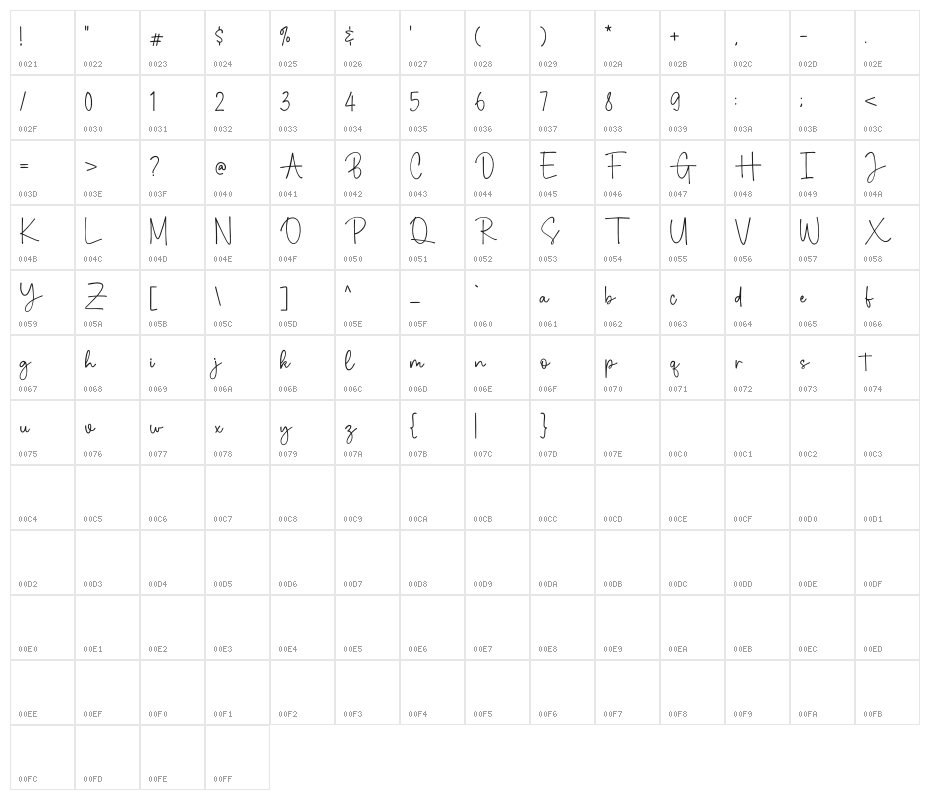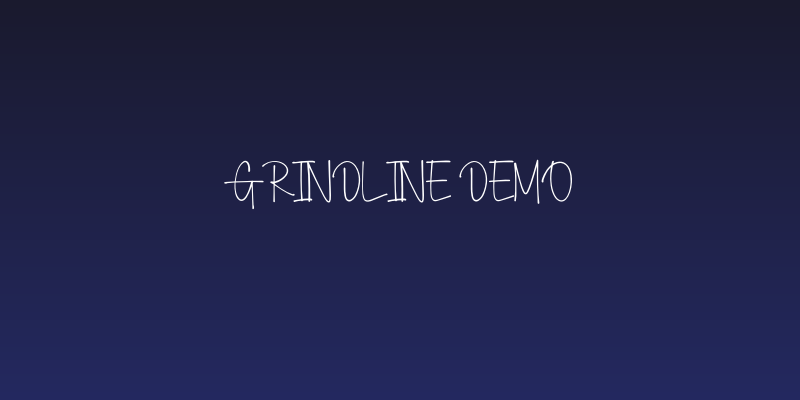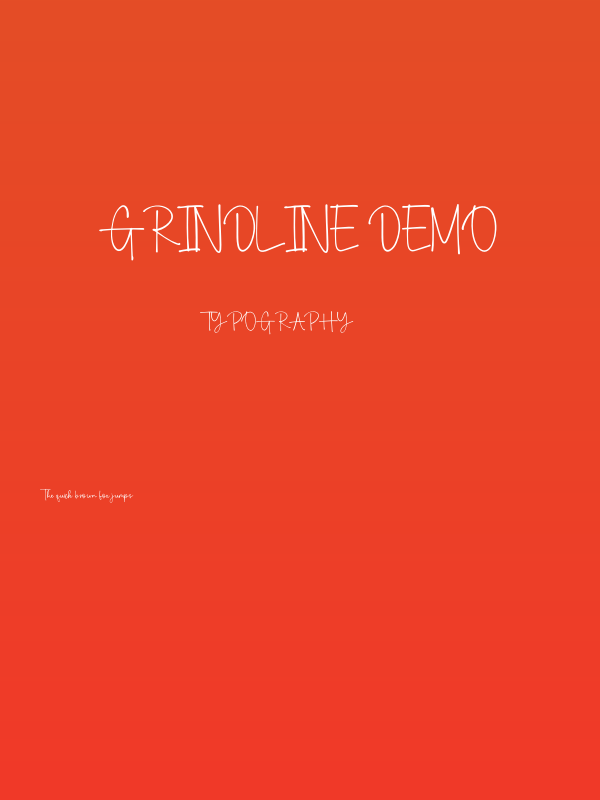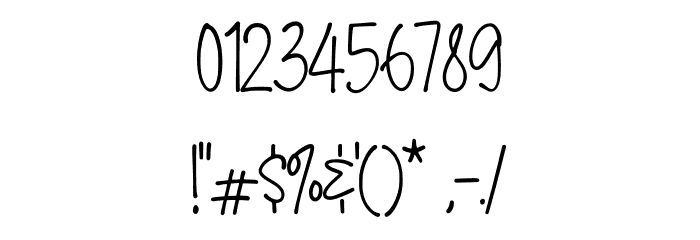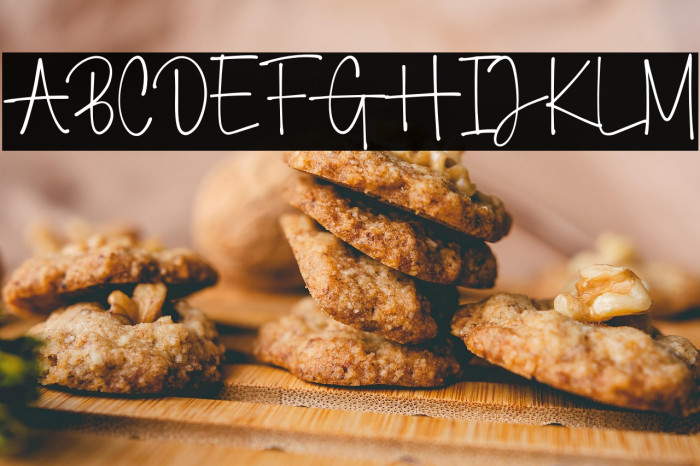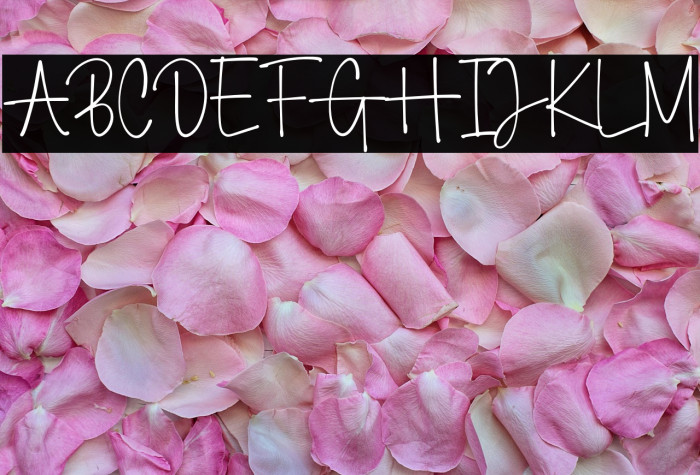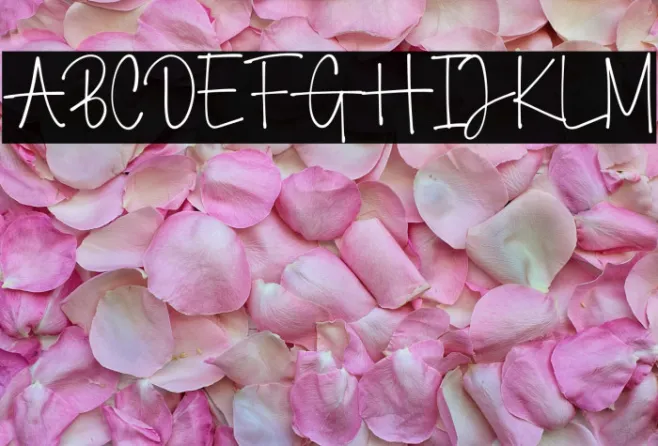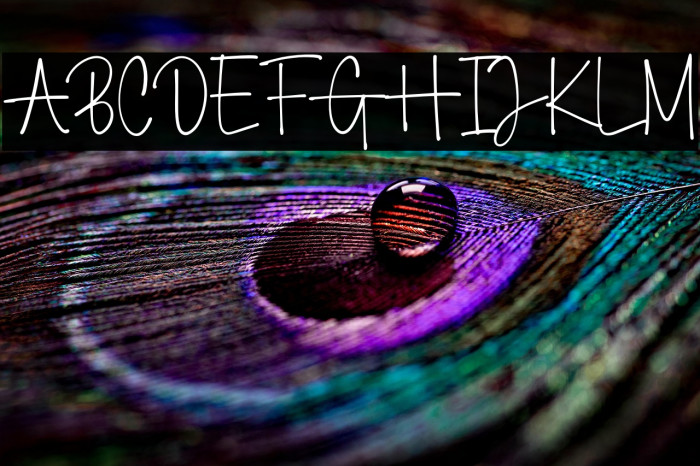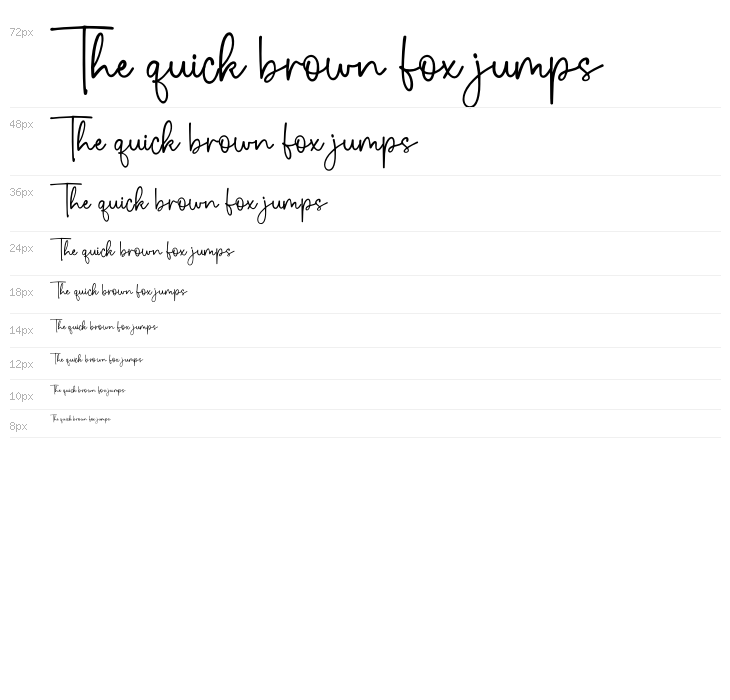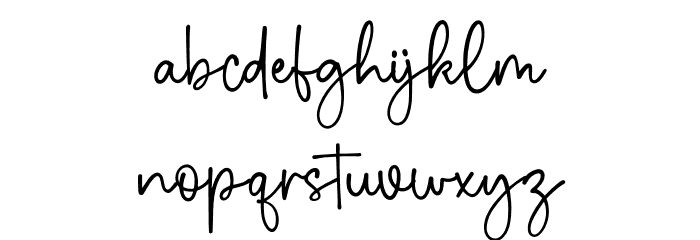
Grindline Demo Font
Grindline Demo Description
This font features a playful and casual handwritten style, characterized by its flowing and interconnected letterforms. The uppercase letters are tall and slender, with a slight slant that adds a dynamic feel. The lowercase letters are more rounded and fluid, maintaining a consistent stroke width that enhances readability. Numbers and special characters follow the same whimsical style, making them blend seamlessly with the alphabet. The overall design exudes a friendly and approachable vibe, perfect for projects that require a personal touch.